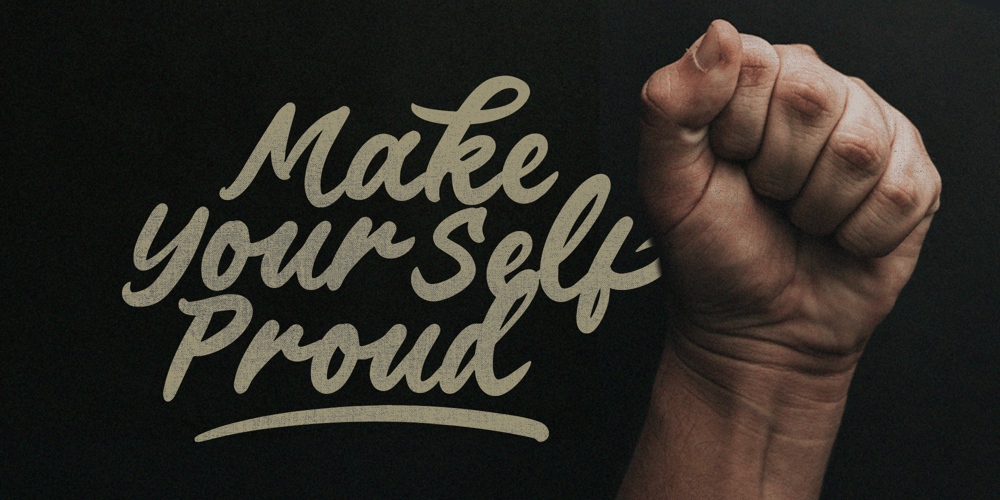
Slogan Mark Font Family was designed by Sarid Ezra and published by Sarid Ezra. Slogan Mark contains 1 styles and family package options. Slogan Mark is a handwritten bold script made for logo and slogan. You can use this font for any purposes such as logotype and branding. With readable and simple style, this font will looks good for quotes and your slogan. Comes with stylistic alternates, swash, ligature and underline, this font will looks more stunning. Slogan Mark also support multi language.